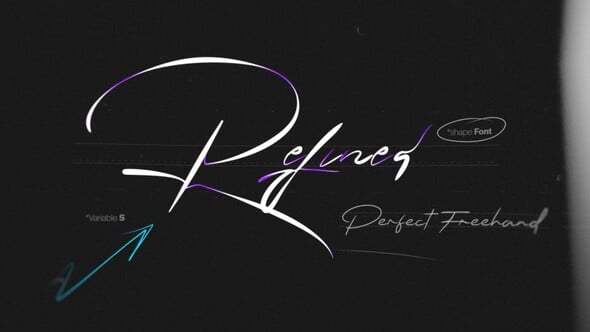
Refined Text Write-On Tool | 7 Custom Shape Fonts with Perfect Freehand Scribble Animation
7 Refined Clean, well-balanced cursive fonts ideal for polished, smooth, professional handwriting styles.
Animating write on Text has never been easier.
Control over timing, style, and dynamic effects — all without keyframes or complex rigs.
7 Custom Write On “shape Fonts”.
80 Custom Dynamic Drag And Drop Scribbles.
Type your text and animation builds automatically.
Consolidated into a Single editable vector layer.
Unique feature in after effects that has never been done before!
Vector Based 100% in app (no scripts – no plugins).
Animating write on Text has never been easier.
Control over timing, style, and dynamic effects — all without keyframes or complex rigs.
A powerful tool that let you fine-tune animated Scribbles without keyframes.
Quickly adjust animation speed, delay, and easing.
Simply Drag the Layers In Out Points To Adjust Responsive Duration.
Enable Animate In and Animate Out with per-stroke randomness.
Fine-tune stroke width, color, tracking, and tapering.
Add dynamic stroke wave distortion with full control.
No keyframes needed – everything auto animated!
No Manual Tracing or Masking.
Custom FX Controls
Dynamics
Speed: Speed of the animation.
Delay: Delay between strokes or letters.
Easings: Stop Motion, Ease Per Letter, or Uniform Ease.
Random Order: Randomizes stroke animation order.
Animate In: Enables entrance animation.
Animate Out: Enables exit animation.
Properties
Stroke Width: Controls stroke thickness.
Stroke Color: Sets the stroke color.
Tracking: Adjusts spacing between letters or elements.
Styling
Taper Start: Thinning at the start of strokes.
Taper End: Thinning at the end of strokes.
Taper Offset: Shifts tapering across stroke.
Extra
Wave Amount: Adds dynamic wave distortion.
Wave Length: Controls how wide the wave is.
Wave Phase: Offsets the wave position.